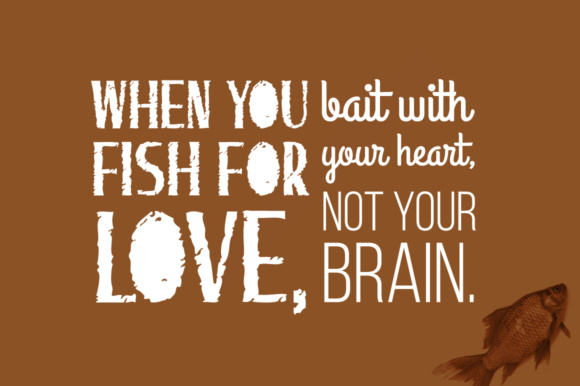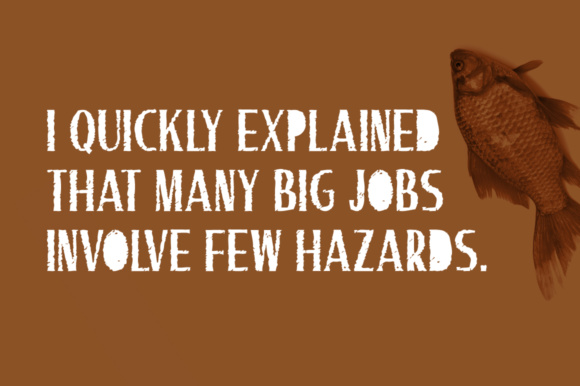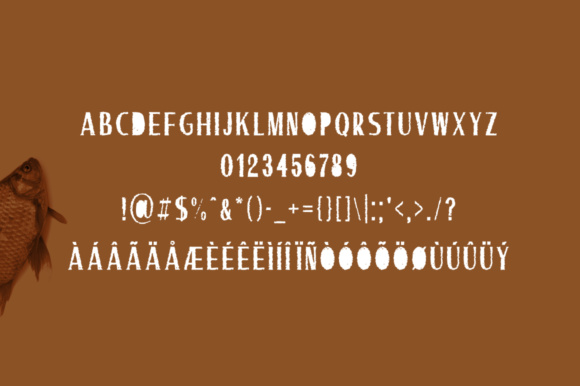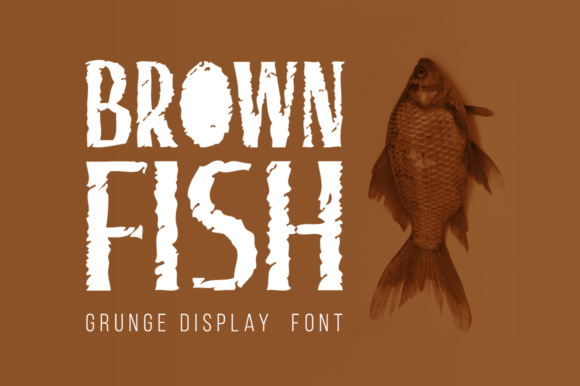
Brown Fish Font: The Perfect Addition to Your Design Arsenal
In the world of typography, a new font has emerged that’s making waves among designers and crafters alike. Meet Brown Fish Font, a brand new display font that’s perfectly suited for a wide range of design applications. From stationery and logos to t-shirts, papers, and print designs, this font is sure to make a splash.
What is Brown Fish Font?
Brown Fish Font is a display font that’s designed to grab attention and make a statement. With its unique and stylish lettering, this font is perfect for designers who want to add a touch of personality to their work. Whether you’re creating a logo, designing a website header, or crafting a poster, Brown Fish Font is the perfect choice.
Key Features of Brown Fish Font
• Unique and Stylish Lettering: Brown Fish Font features a distinctive and stylish lettering style that’s sure to set your designs apart.
• Highly Versatile: This font is perfect for a wide range of design applications, from stationery and logos to t-shirts, papers, and print designs.
• Easily Readable: Despite its unique style, Brown Fish Font is highly readable, making it perfect for use in a variety of contexts.
• Scalable: This font is designed to look great at any size, from small icons to large posters.
Use Cases for Brown Fish Font
Brown Fish Font is a highly versatile font that can be used in a wide range of design applications. Here are just a few examples:
• Stationery: Add a touch of personality to your business cards, letterheads, and envelopes with Brown Fish Font.
• Logos: Create a unique and memorable logo for your business or brand with this stylish font.
• T-Shirts and Apparel: Design eye-catching t-shirts, hoodies, and other apparel with Brown Fish Font.
• Papers and Print Designs: Add a touch of elegance to your papers, brochures, and print designs with this beautiful font.
• Website Headers: Create a stunning website header that grabs attention and sets the tone for your brand.
• Posters and Flyers: Design eye-catching posters and flyers that showcase your message in style.
• Image Sliders: Add a touch of sophistication to your image sliders and carousels with Brown Fish Font.
Why Choose Brown Fish Font?
With so many fonts to choose from, why should you choose Brown Fish Font? Here are just a few reasons:
• Unique Style: Brown Fish Font offers a unique and stylish lettering style that’s sure to set your designs apart.
• Highly Versatile: This font can be used in a wide range of design applications, making it a great addition to your design arsenal.
• Easily Readable: Despite its unique style, Brown Fish Font is highly readable, making it perfect for use in a variety of contexts.
• Scalable: This font is designed to look great at any size, from small icons to large posters.
Font Name Brown Fish Font
Author Shattered Notion
In conclusion, Brown Fish Font is a brand new display font that’s perfectly suited for a wide range of design applications. With its unique and stylish lettering, high versatility, and ease of readability, this font is sure to become a favorite among designers and crafters. Whether you’re creating a logo, designing a website header, or crafting a poster, Brown Fish Font is the perfect choice. So why wait? Download Brown Fish Font today and start creating stunning designs that showcase your creativity and style.